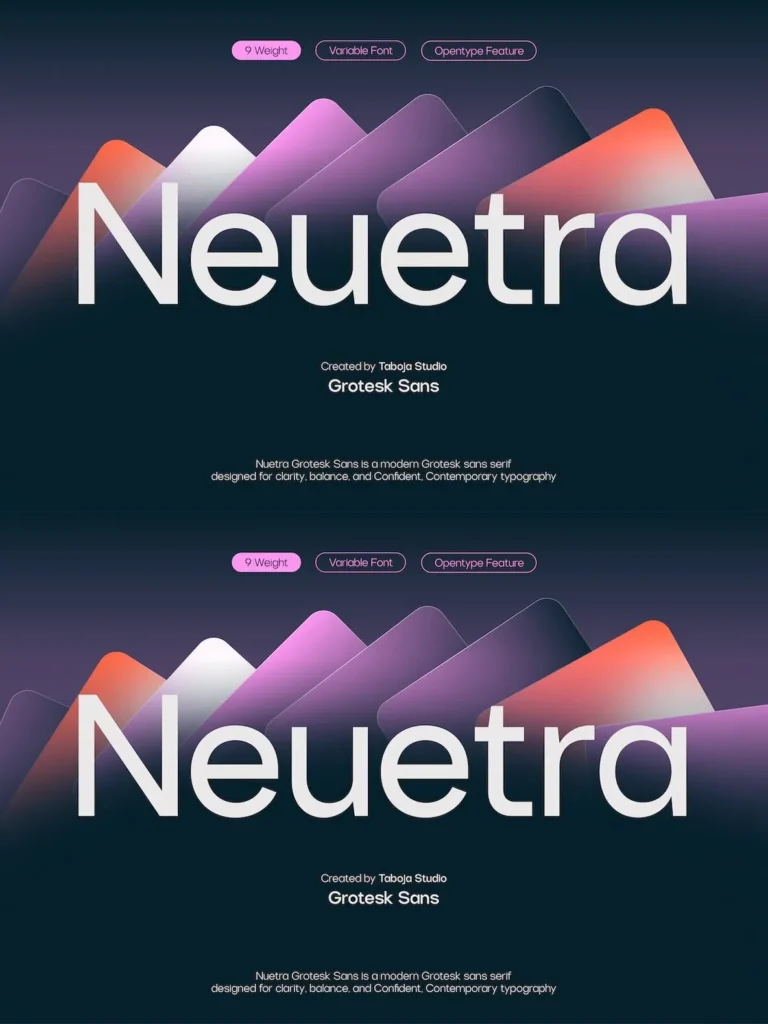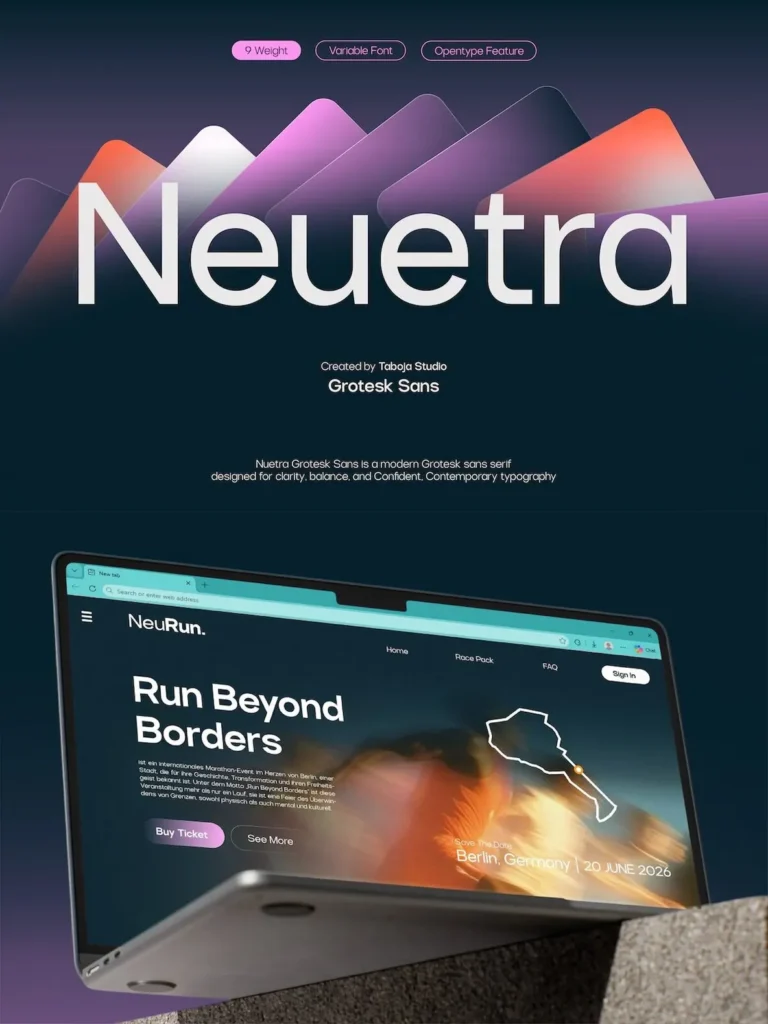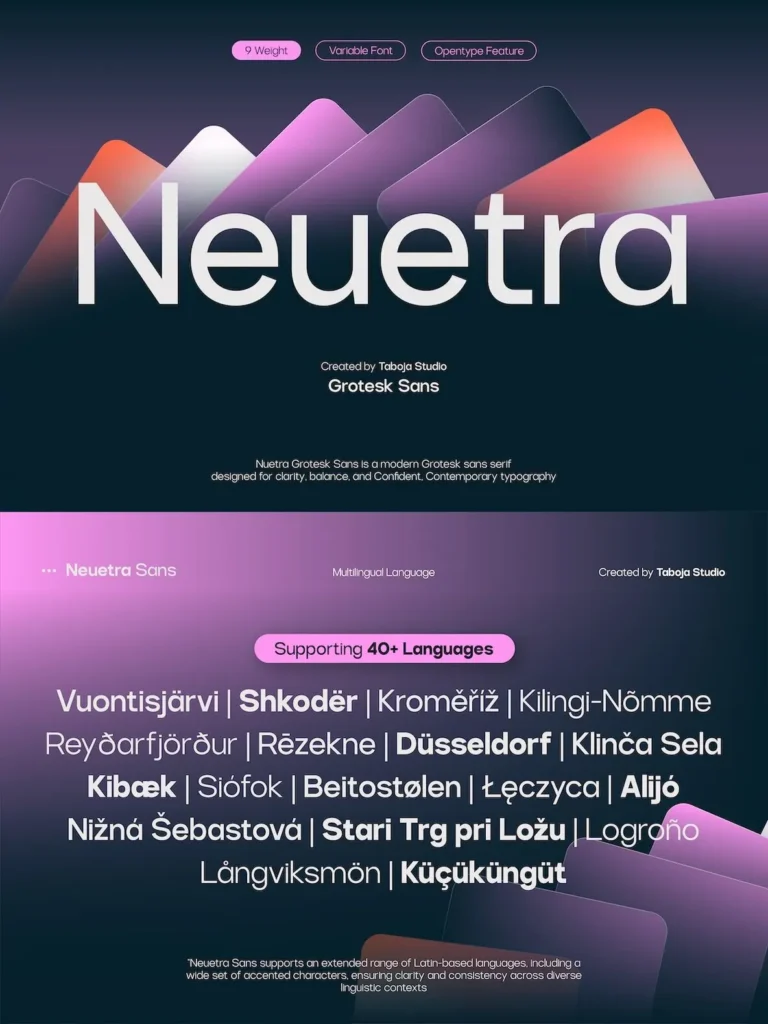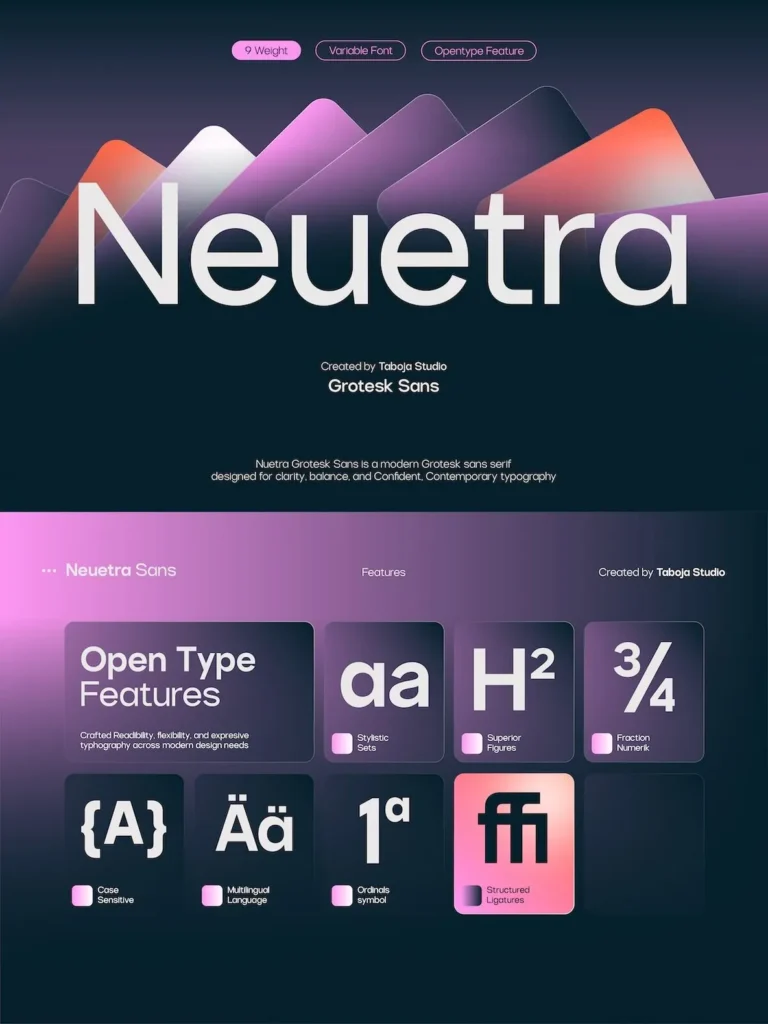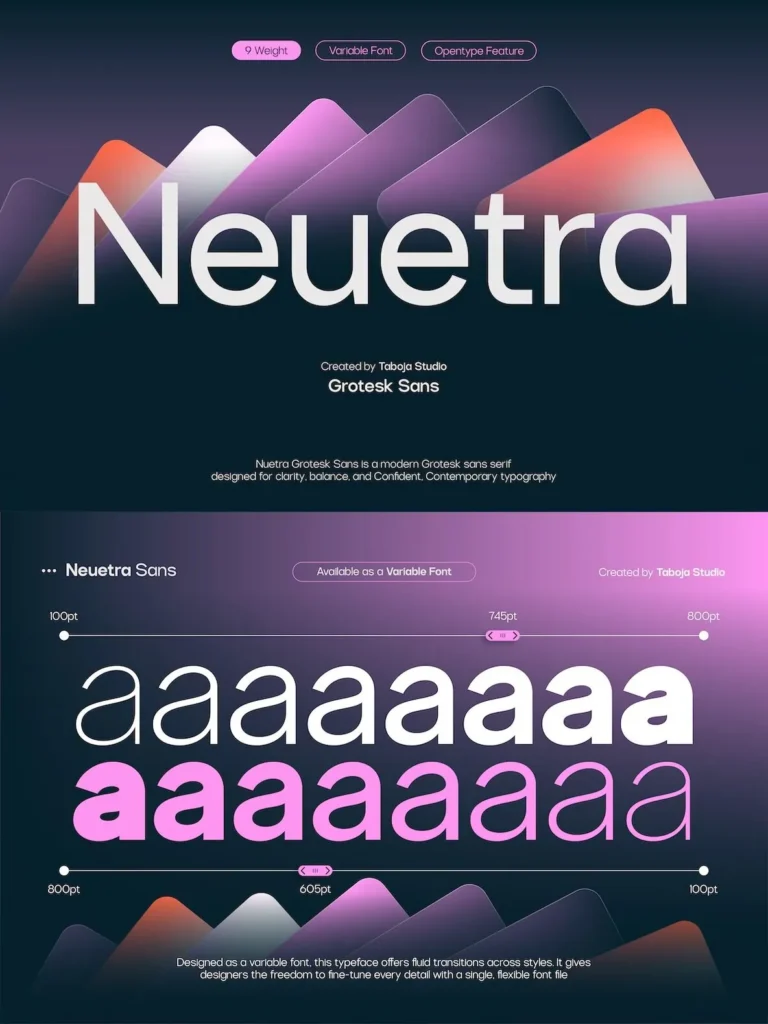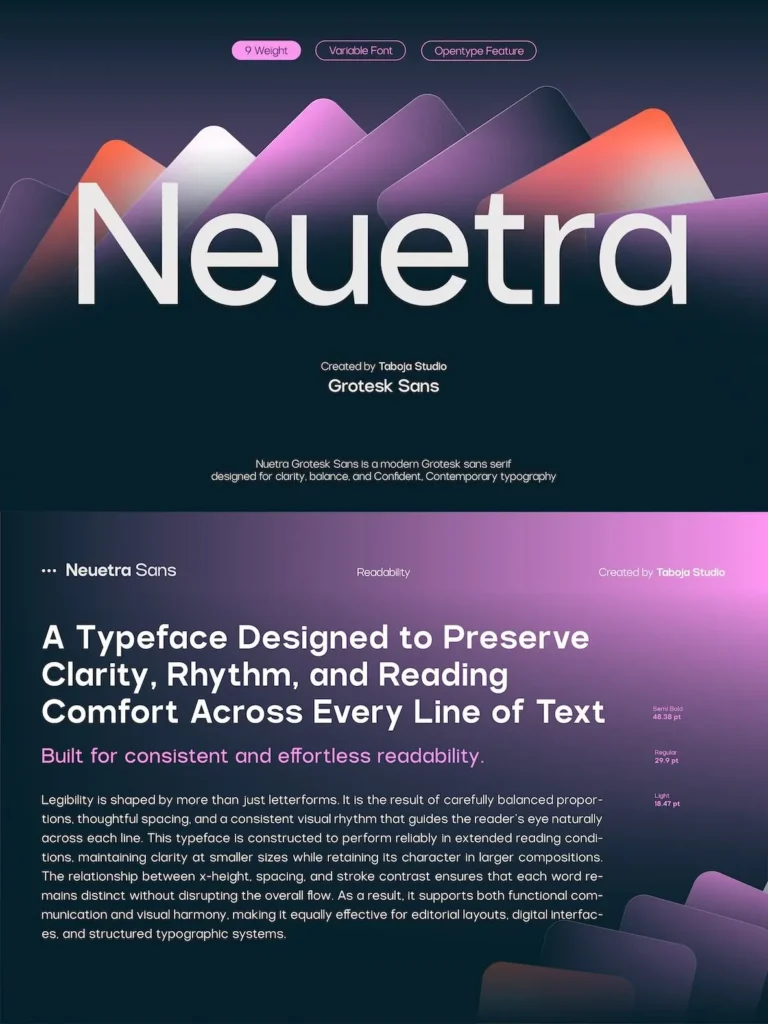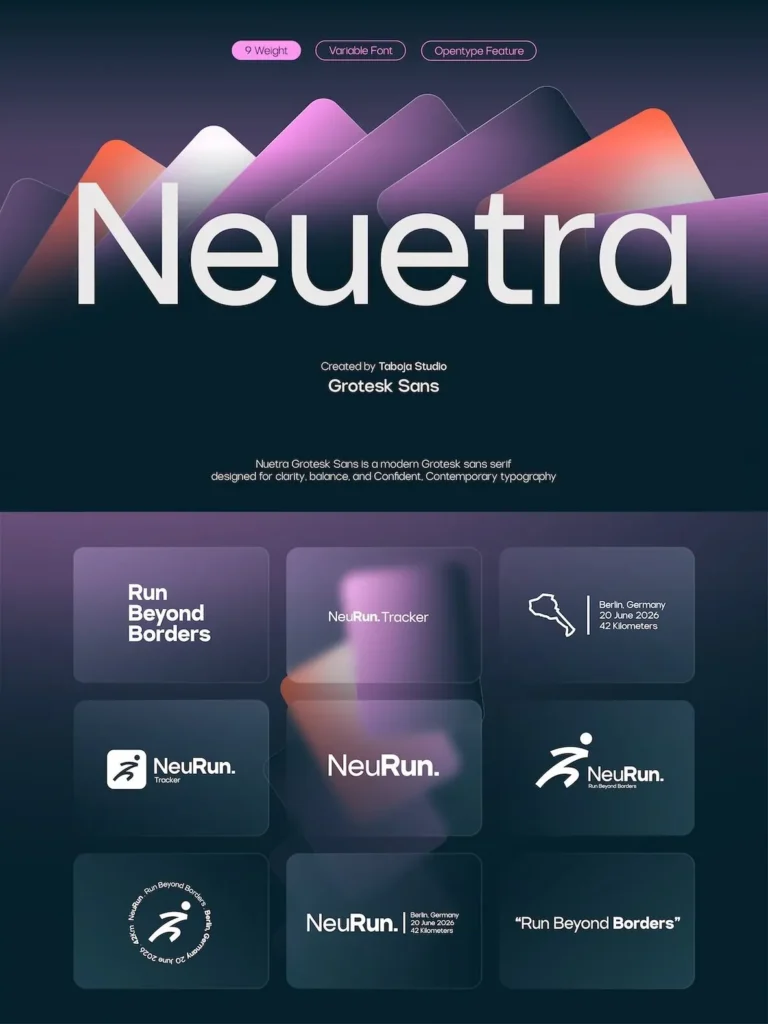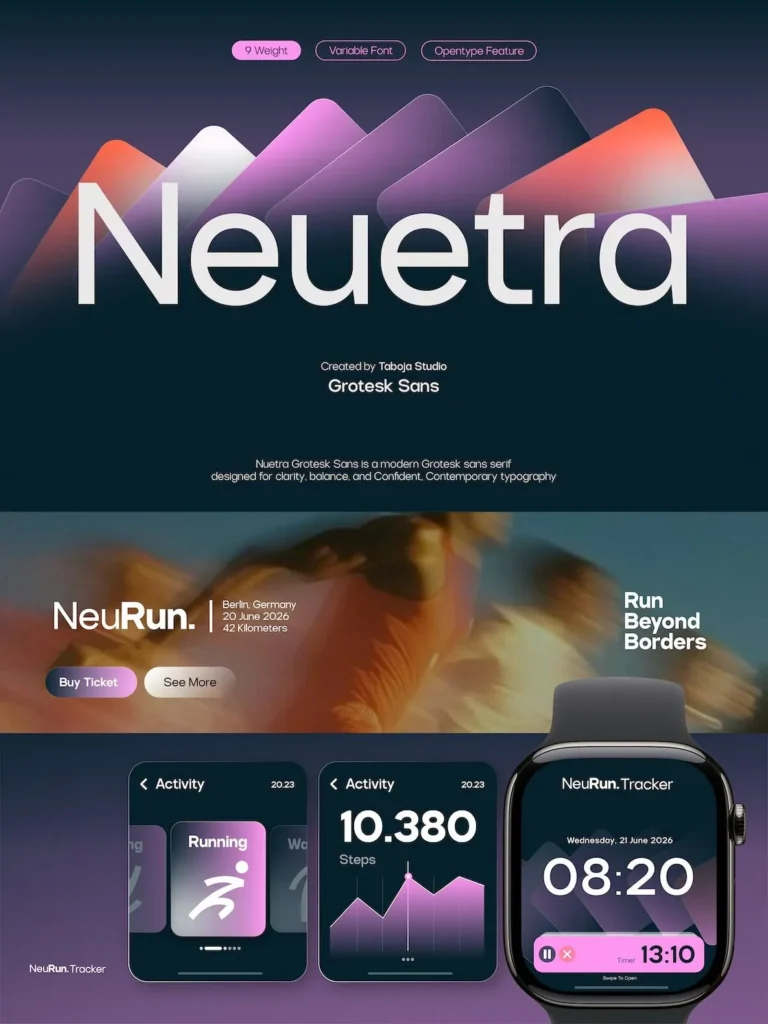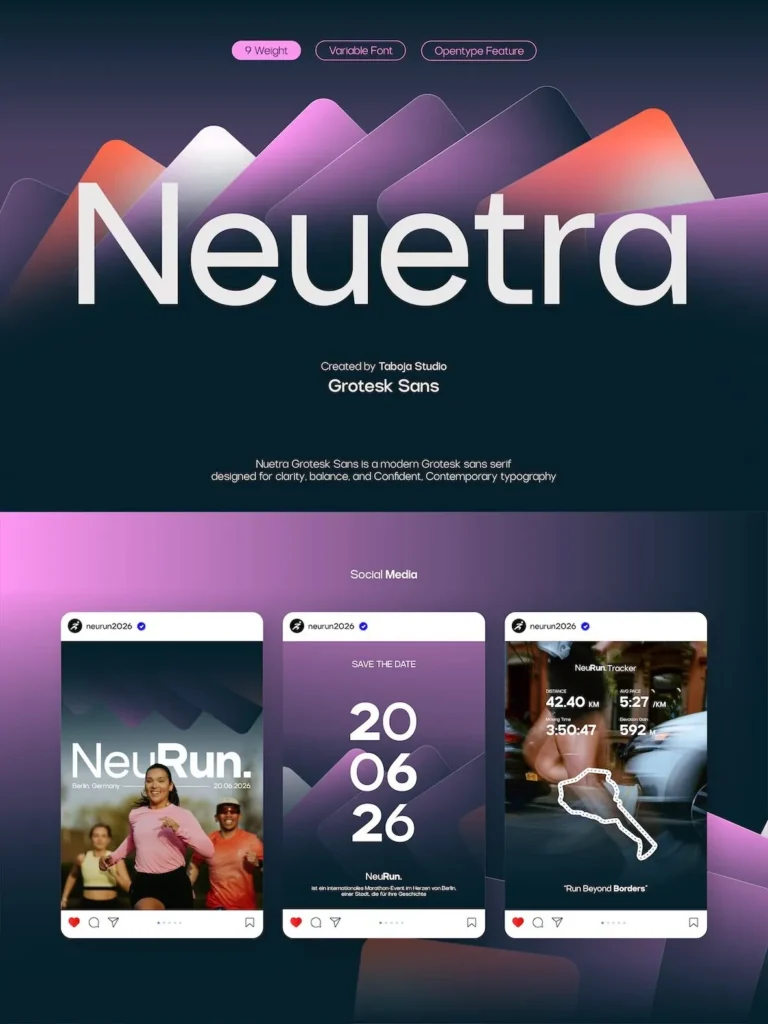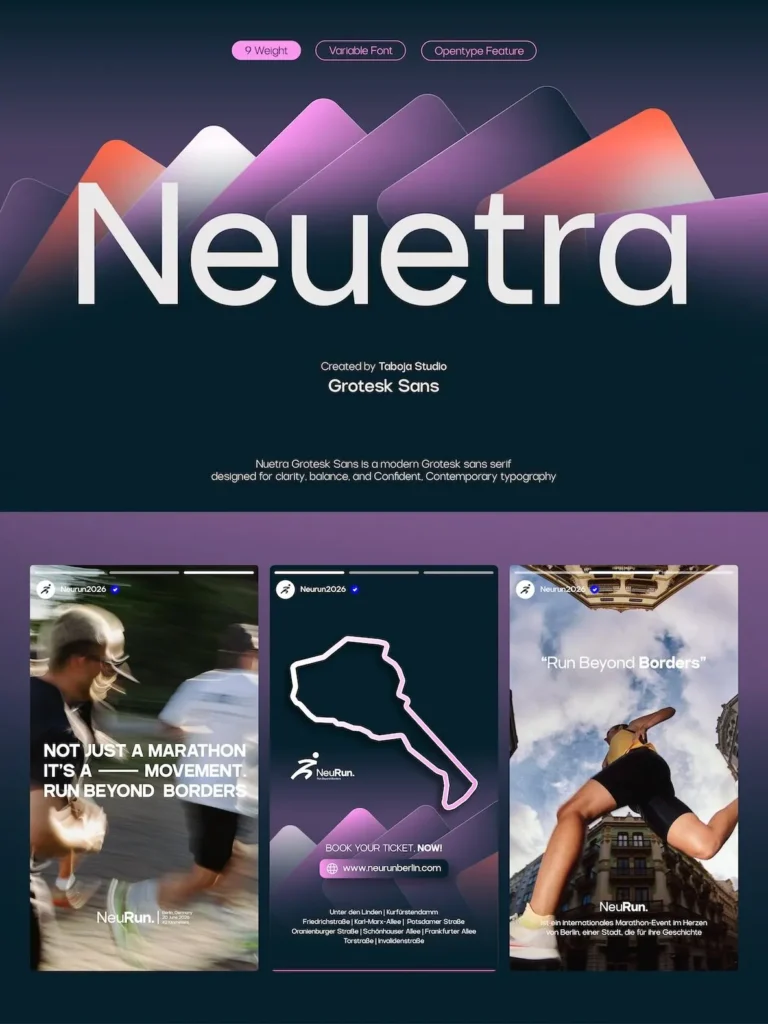
TBJ Neuetra Font
TBJ Neuetra — Quiet Grotesk Authority
TBJ Neuetra is a grotesk sans serif drawn from a neutral base with humanist details. It does not push for attention; it earns it through consistency. The result is a typeface that feels familiar without being generic, and restrained without being stiff. Its forms support clear typography while keeping enough warmth to serve text, interface, and identity work with confidence.
The family spans 9 weights with a full variable axis, giving designers real flexibility without sacrificing cohesion. Spacing is set for both screen and print. Terminals are cleaned up where it matters, and kept soft where the text needs to breathe. TBJ Neuetra fits naturally into brand identity systems, editorial layouts, UI design, and poster work.
It suits brands and studios that need a workhorse typeface: reliable across contexts, honest in form, and easy to build a visual system around. Designed for the long work. From Taboja Studio.